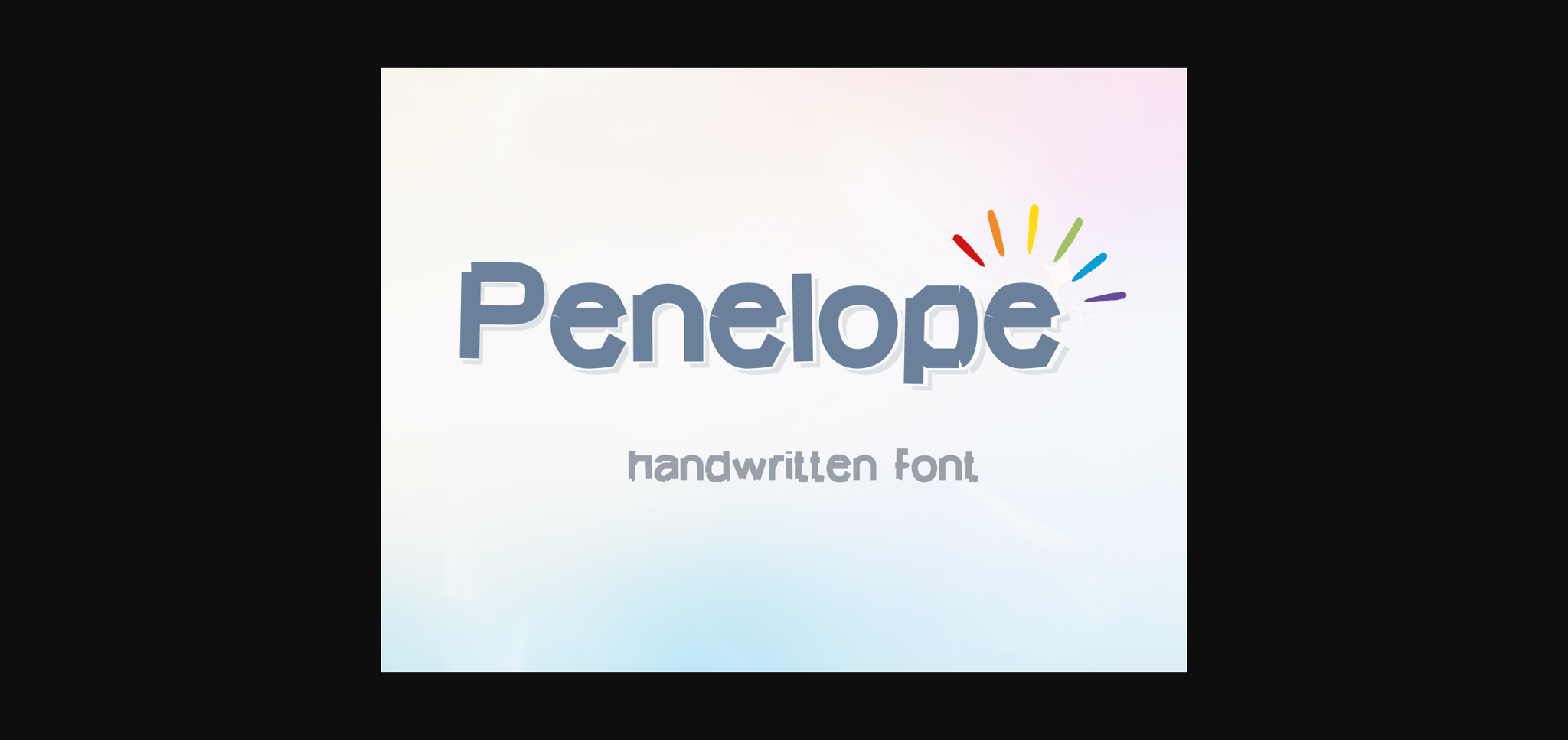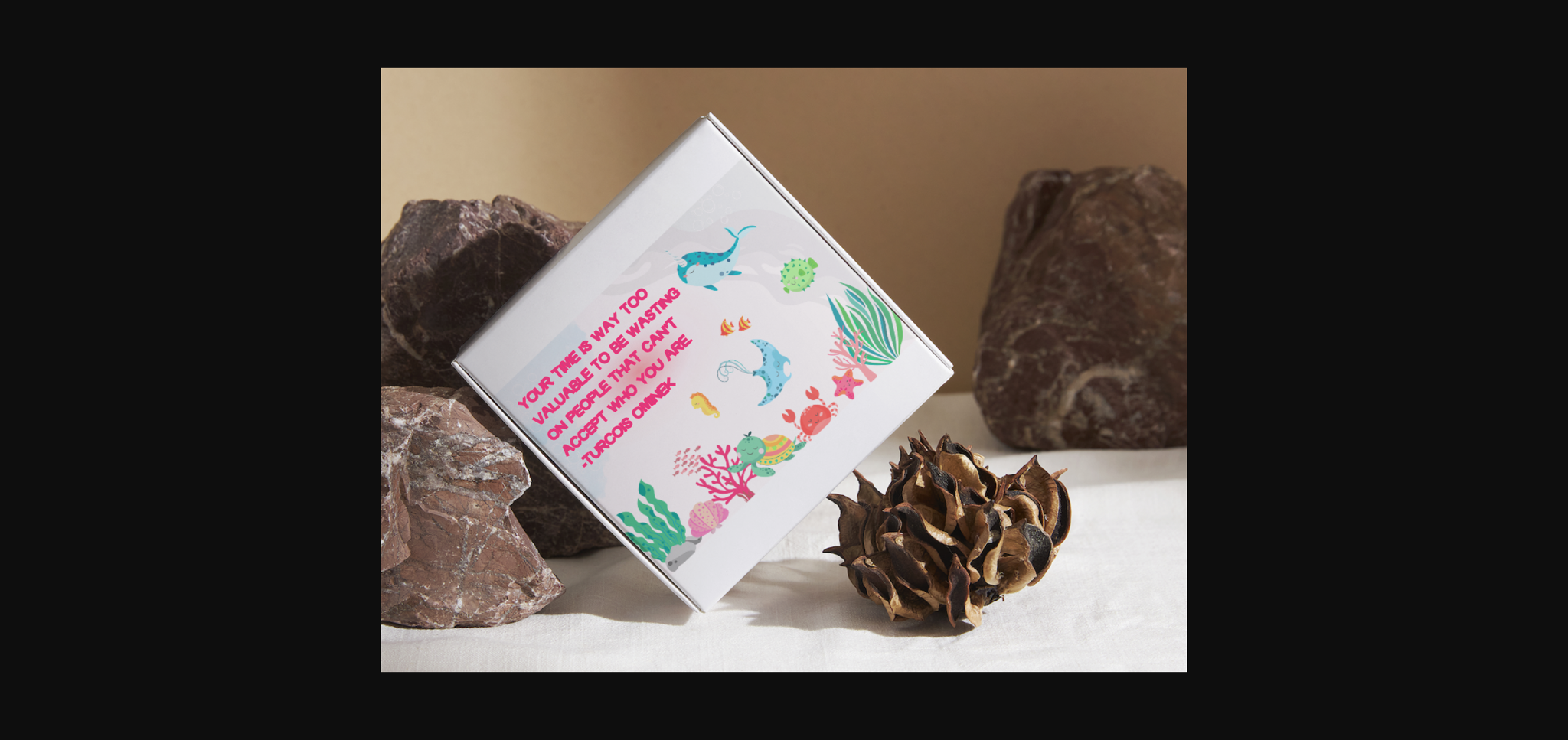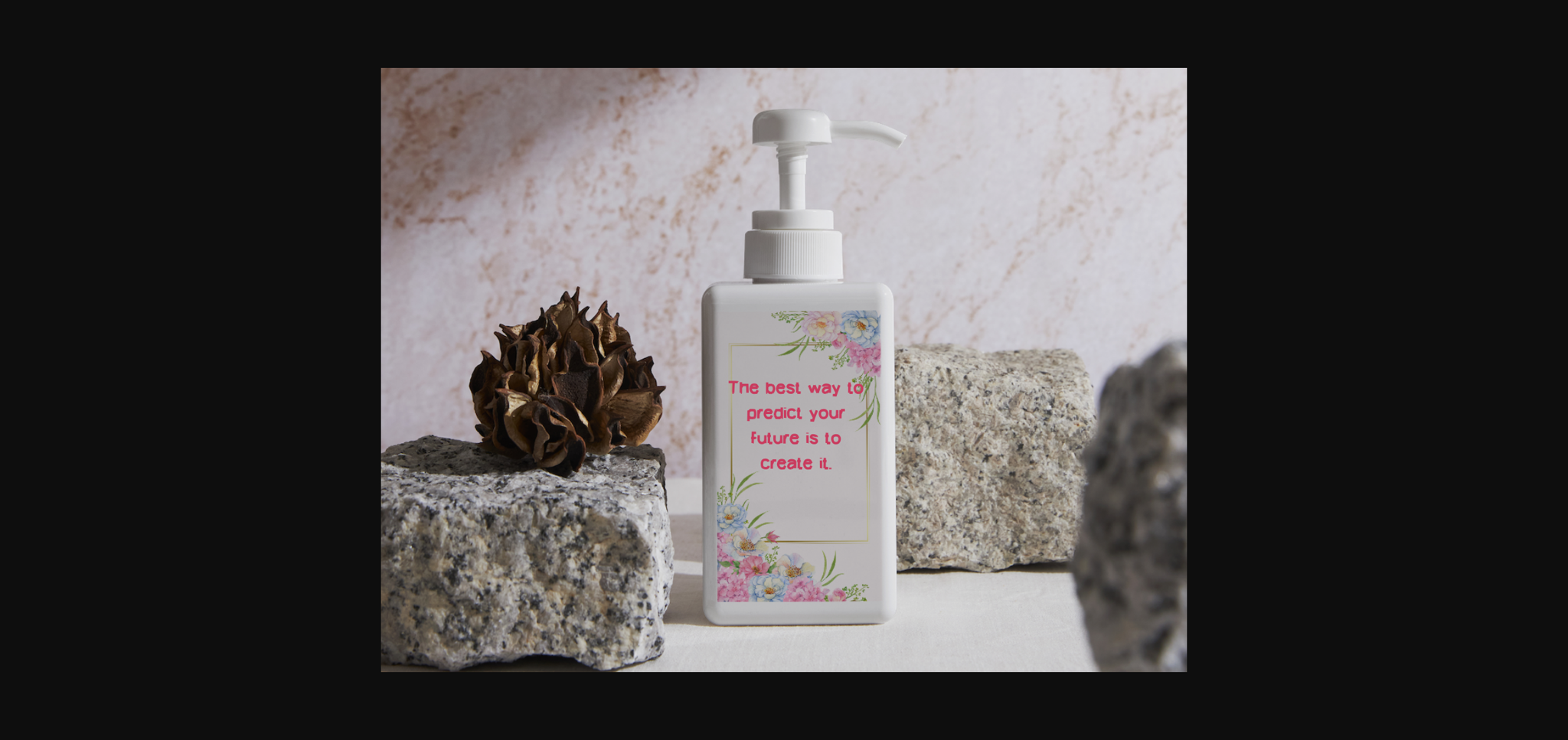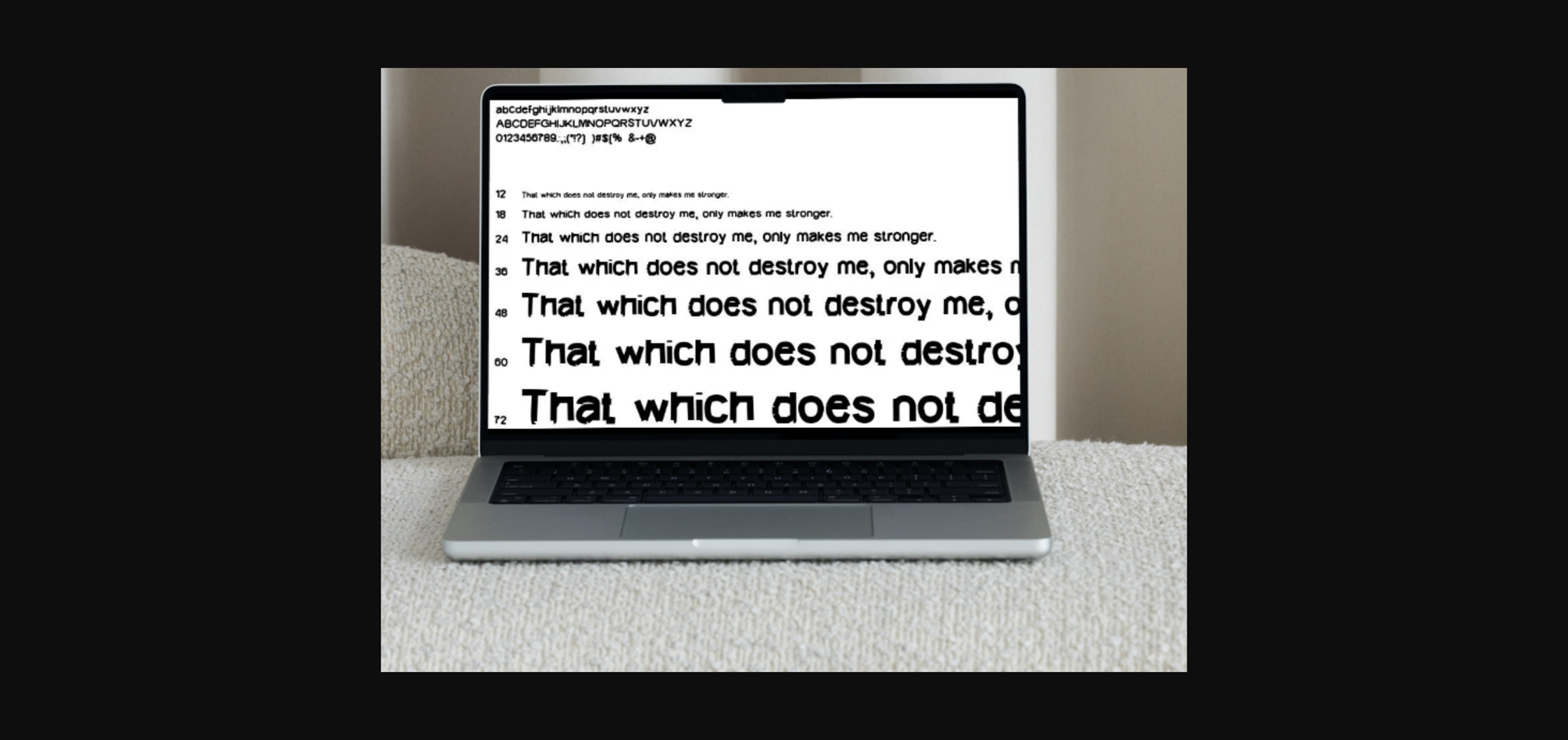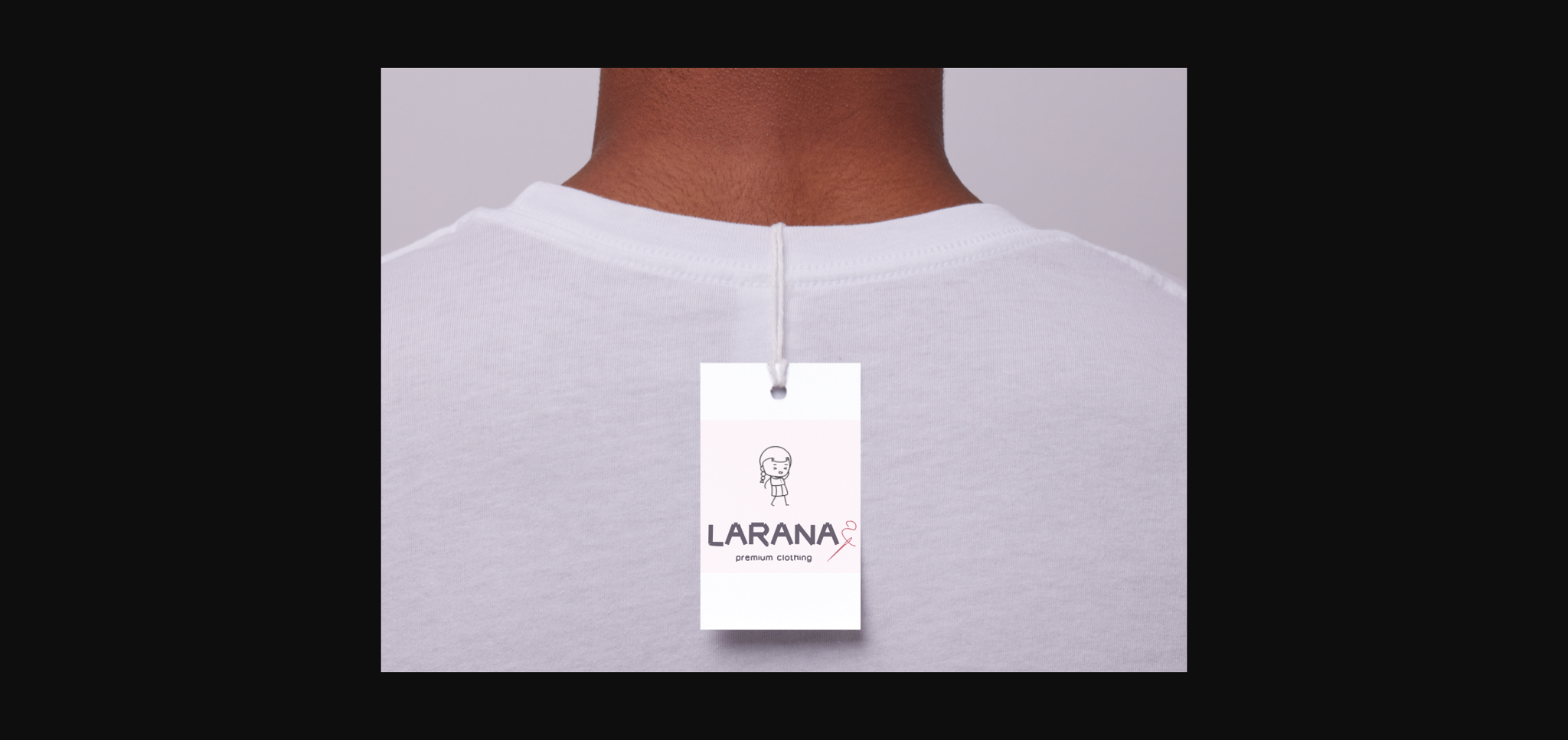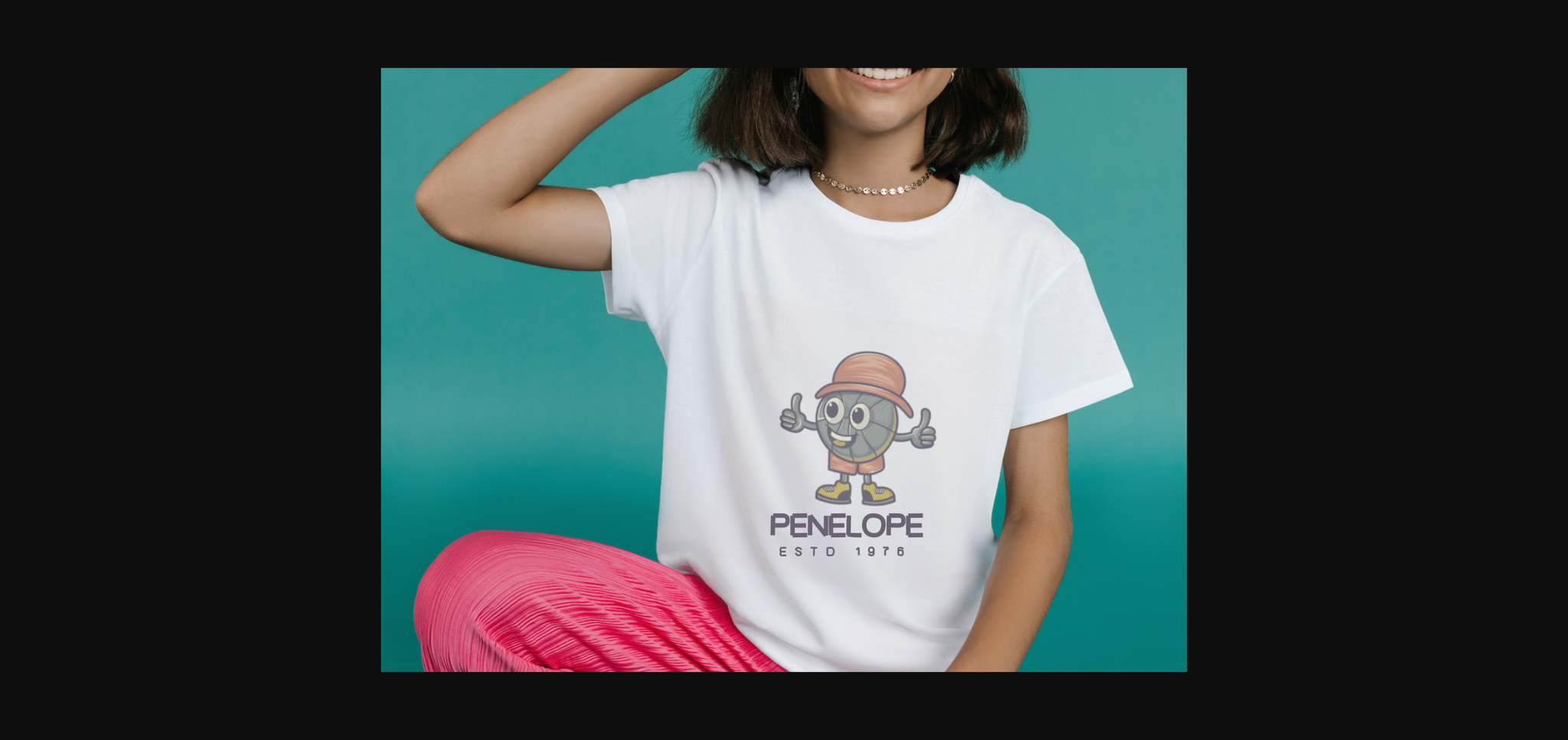
Penelope Font
About Penelope Font
Penelope is a quirky sans-serif font that revels in playful eccentricity. Its unconventional letterforms dance with whimsical charm, adding a touch of personality to any project. Ideal for designs that embrace creativity and individuality, Penelope injects a dose of quirkiness, making your text truly stand out.